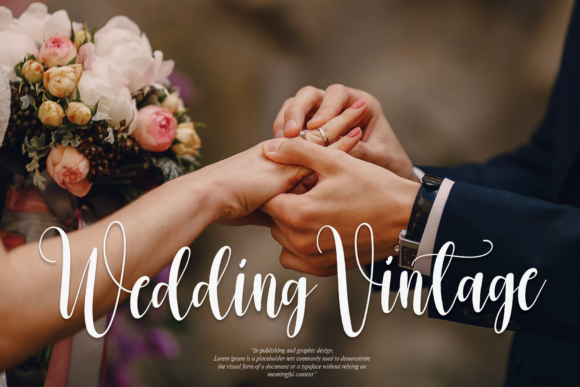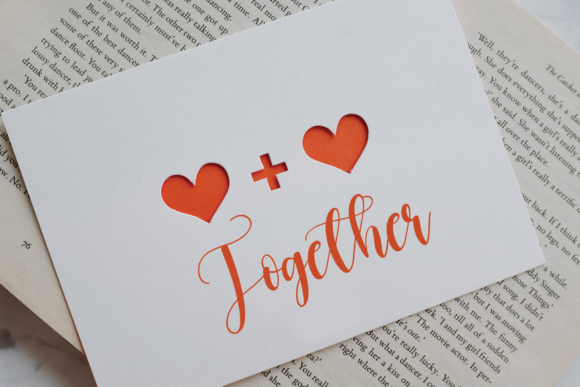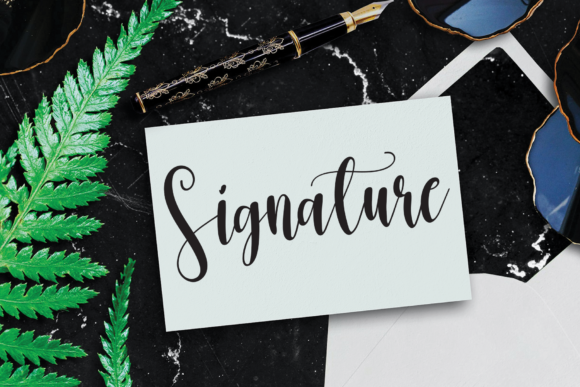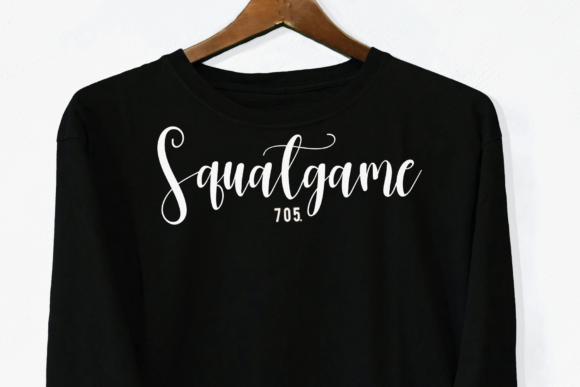
Introducing Belives Font: The Ultimate Romantic Cursive Handwritten Font
Are you tired of using the same old fonts for your design projects? Do you want to add a touch of romance and elegance to your creations? Look no further than Belives Font, a beautiful cursive handwritten font that’s perfect for taking your designs to the next level.
What is Belives Font?
Belives Font is a romantic and cursive handwritten font that’s designed to add a personal touch to any project. Its flowing lines and delicate curves make it perfect for creating beautiful and eye-catching designs that stand out from the crowd. Whether you’re a designer, crafty DIY enthusiast, or social media influencer, Belives Font is the perfect addition to your font collection.
What Makes Belives Font So Special?
Belives Font is more than just a font – it’s a design statement. Its unique and elegant style is capable of taking any item out of the ordinary, making it perfect for a wide range of design projects. Here are just a few ways you can use Belives Font to elevate your designs:
- Wall Displays: Create stunning wall displays with Belives Font that are perfect for weddings, events, or even everyday decor.
- Wedding Invitations: Make your wedding invitations truly special with Belives Font, adding a touch of romance and elegance to your big day.
- Social Media Post Logos: Stand out on social media with eye-catching logos and graphics created with Belives Font.
- Advertisements: Add a touch of sophistication to your ads with Belives Font, perfect for promoting products or services.
- Product Packaging: Make your product packaging truly special with Belives Font, adding a personal touch to your brand.
- Product Designs: Create stunning product designs with Belives Font, perfect for labels, branding, and more.
- Labels: Add a touch of elegance to your labels with Belives Font, perfect for product packaging or organization.
- Photography: Use Belives Font to create beautiful watermarks or overlays for your photos.
- Invitations: Create stunning invitations for any occasion with Belives Font, from birthday parties to graduations.
- Stationery: Add a touch of romance to your stationery with Belives Font, perfect for letters, cards, or journals.
Why Designers and Crafters Love Belives Font
Belives Font is a favorite among designers and crafters for its versatility and elegance. Here are just a few reasons why:
- Easy to Read: Belives Font is clear and easy to read, making it perfect for body text or headlines.
- Highly Versatile: Belives Font can be used for a wide range of design projects, from digital to print.
- Unique Style: Belives Font has a unique and distinctive style that’s sure to make your designs stand out.
- Handwritten Touch: Belives Font has a beautiful handwritten touch that’s perfect for adding a personal touch to your designs.
Tips for Using Belives Font
Here are a few tips for getting the most out of Belives Font:
- Use it Sparingly: Belives Font is a statement font, so use it sparingly to make the most impact.
- Pair it with Other Fonts: Belives Font pairs well with other fonts, so experiment with different combinations to find the perfect look.
- Experiment with Colors: Belives Font looks great in a variety of colors, so don’t be afraid to experiment and find the perfect hue.
Belives Font is a beautiful and versatile cursive handwritten font that’s perfect for designers and crafters. Its unique style and elegant curves make it perfect for a wide range of design projects, from wall displays to social media post logos. With its easy-to-read design and highly versatile style, Belives Font is sure to become a favorite in your font collection.